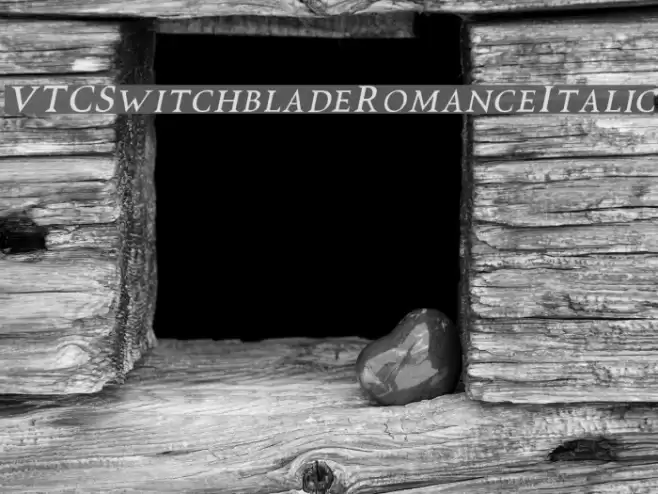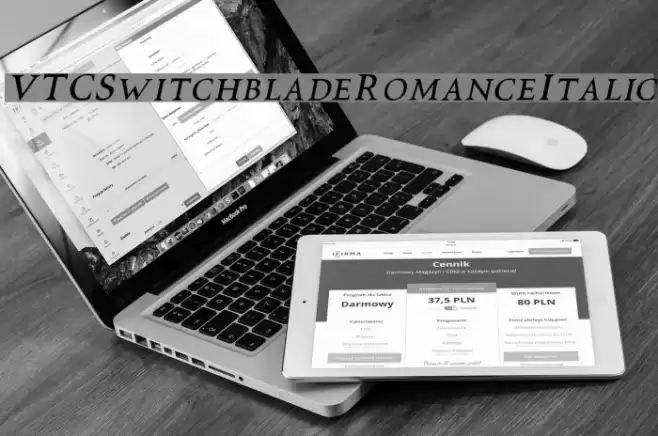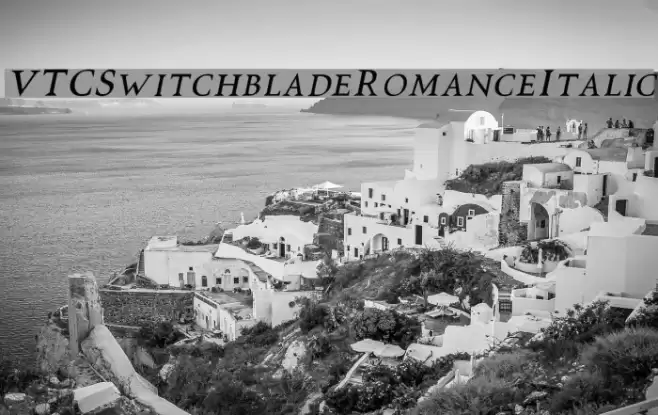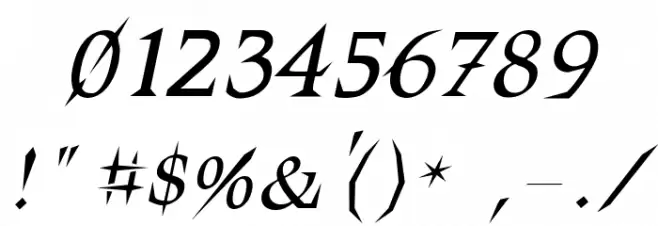
VTCSwitchbladeRomanceItalic Font
VTCSwitchbladeRomanceItalic Description
This font features a dynamic and edgy style with sharp, angular serifs and a pronounced italic slant. The characters are bold and assertive, with a distinct flair that suggests movement and energy. The uppercase letters are particularly striking, with elongated strokes and a slightly condensed form that enhances their dramatic appearance. The lowercase letters maintain the same angular quality, providing a cohesive look across the typeface. Numbers and special characters follow the same stylistic cues, ensuring consistency throughout. This font is well-suited for projects that require a bold statement and a modern, rebellious aesthetic.
A bold, italic serif font with sharp, angular features and a dynamic style from Uncategorized fonts.